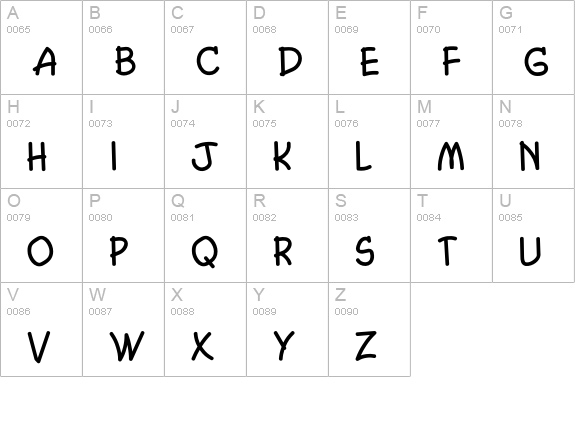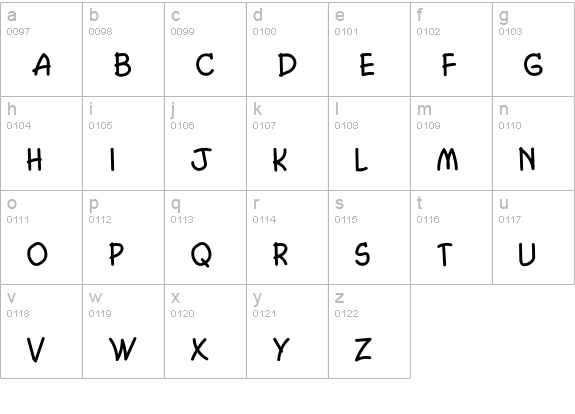
ComicBook Font Details
ComicBook font is a fun and playful typeface that brings a touch of whimsy to any design project. With its bold, comic book-inspired style, this font is perfect for creating eye-catching headlines, posters, and more. The rounded edges and thick strokes give ComicBook font a dynamic and energetic feel, making it a great choice for projects that need a pop of personality. Best of all, ComicBook font is available for free download at FontsMarket.com. Whether you're a professional designer looking to add a unique touch to your work or just someone who loves experimenting with different fonts, ComicBook is a fantastic choice that won't cost you a thing. Download it today and let your creativity run wild with this fantastic free font!